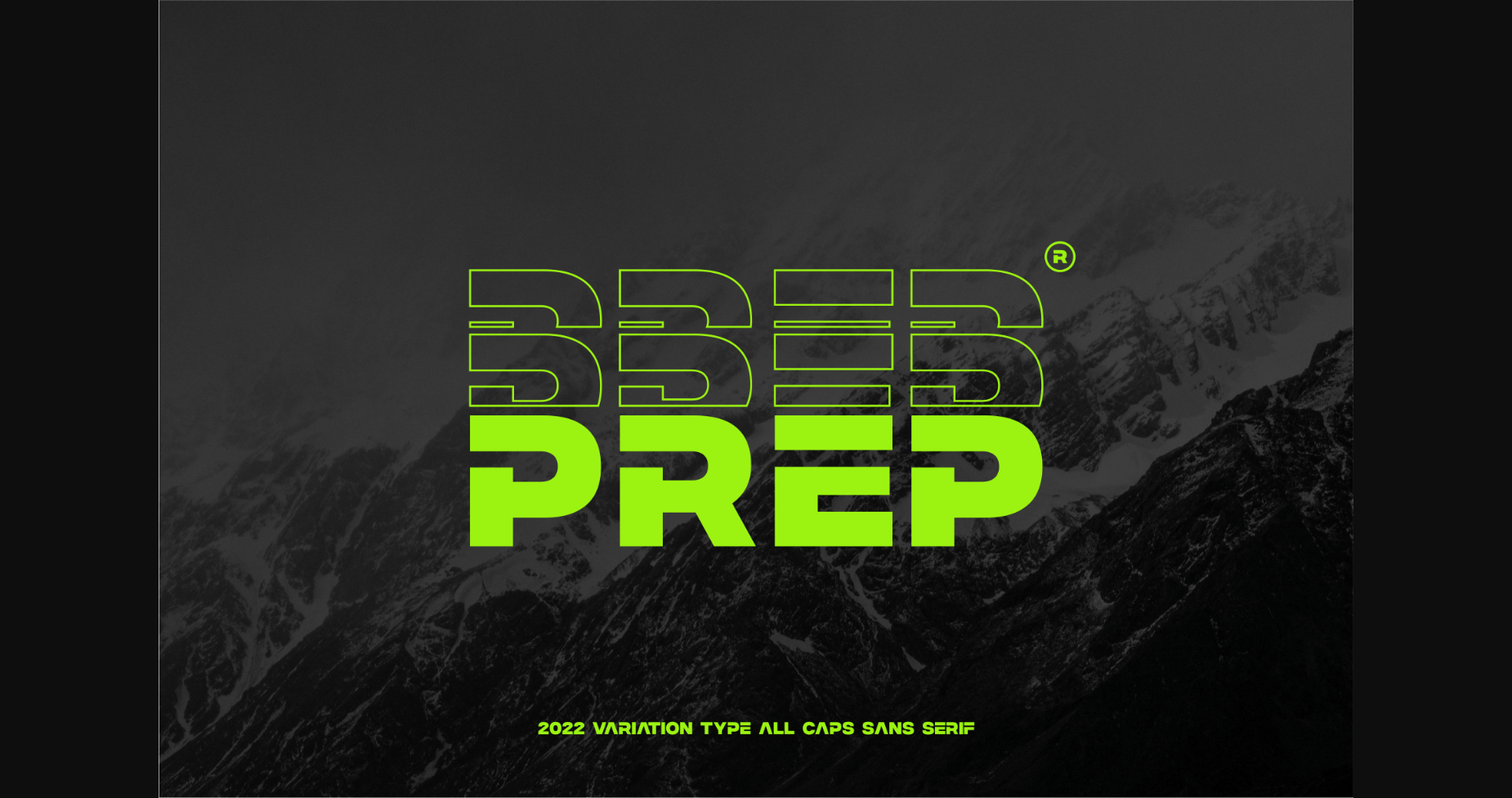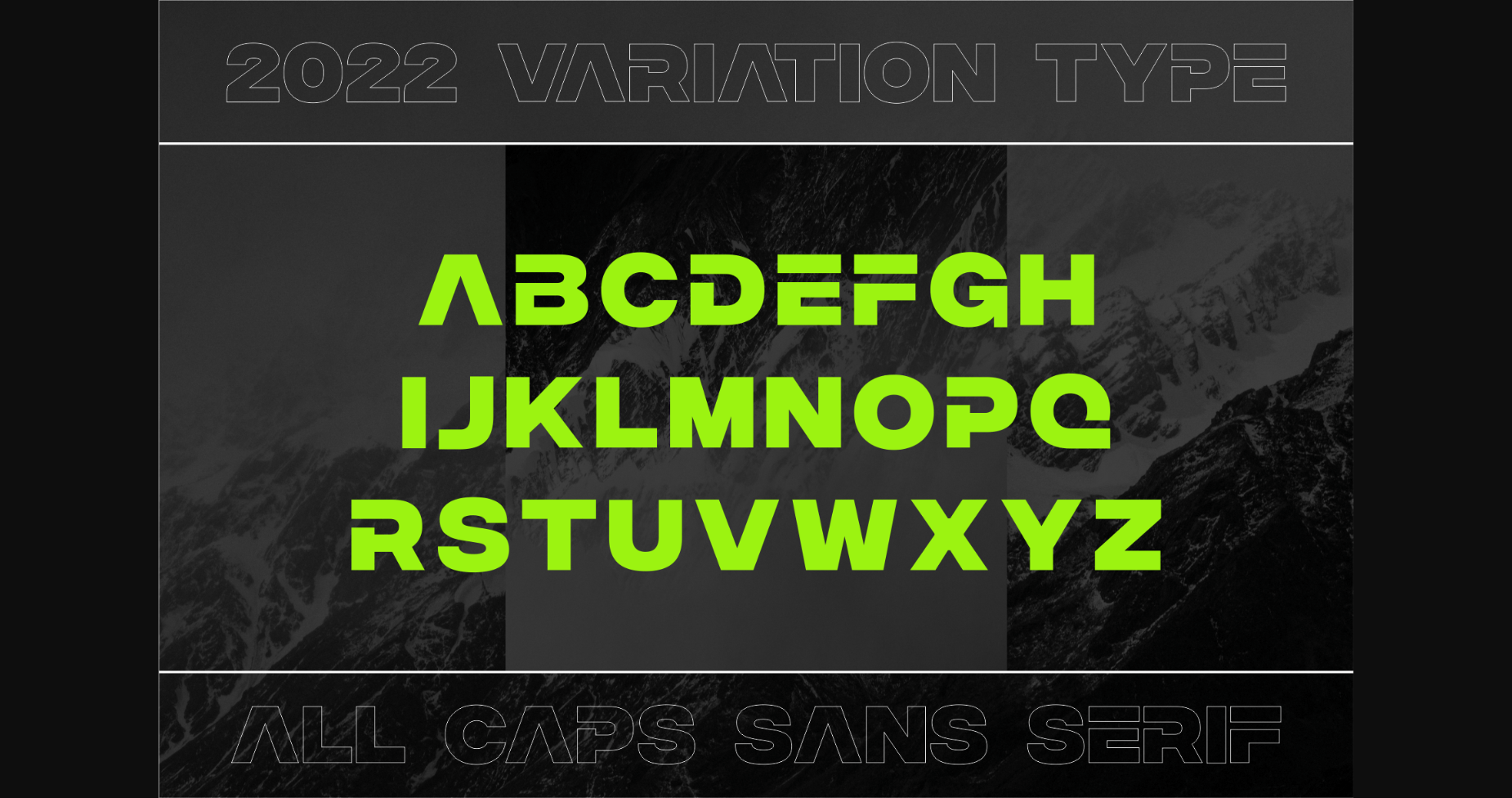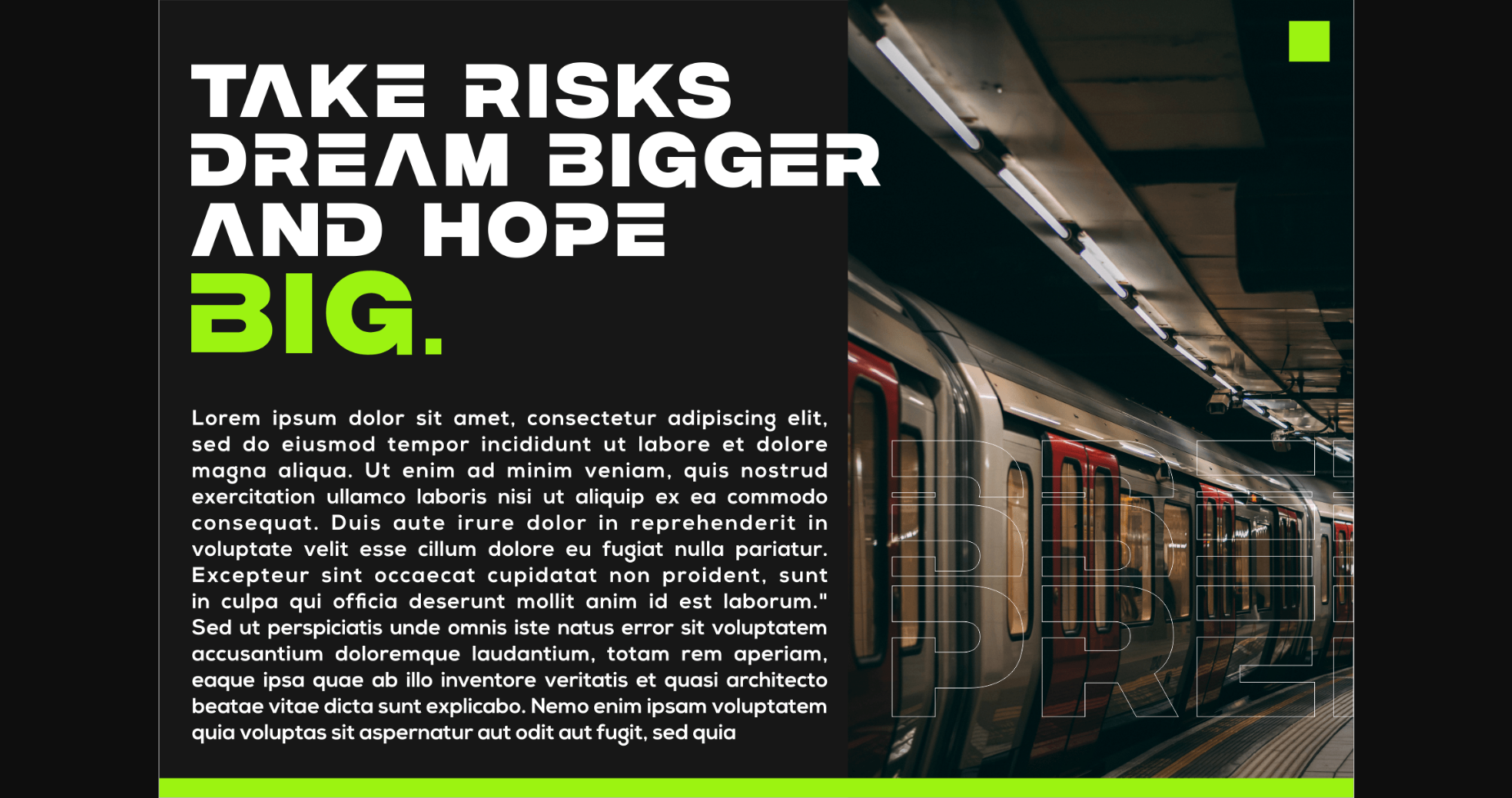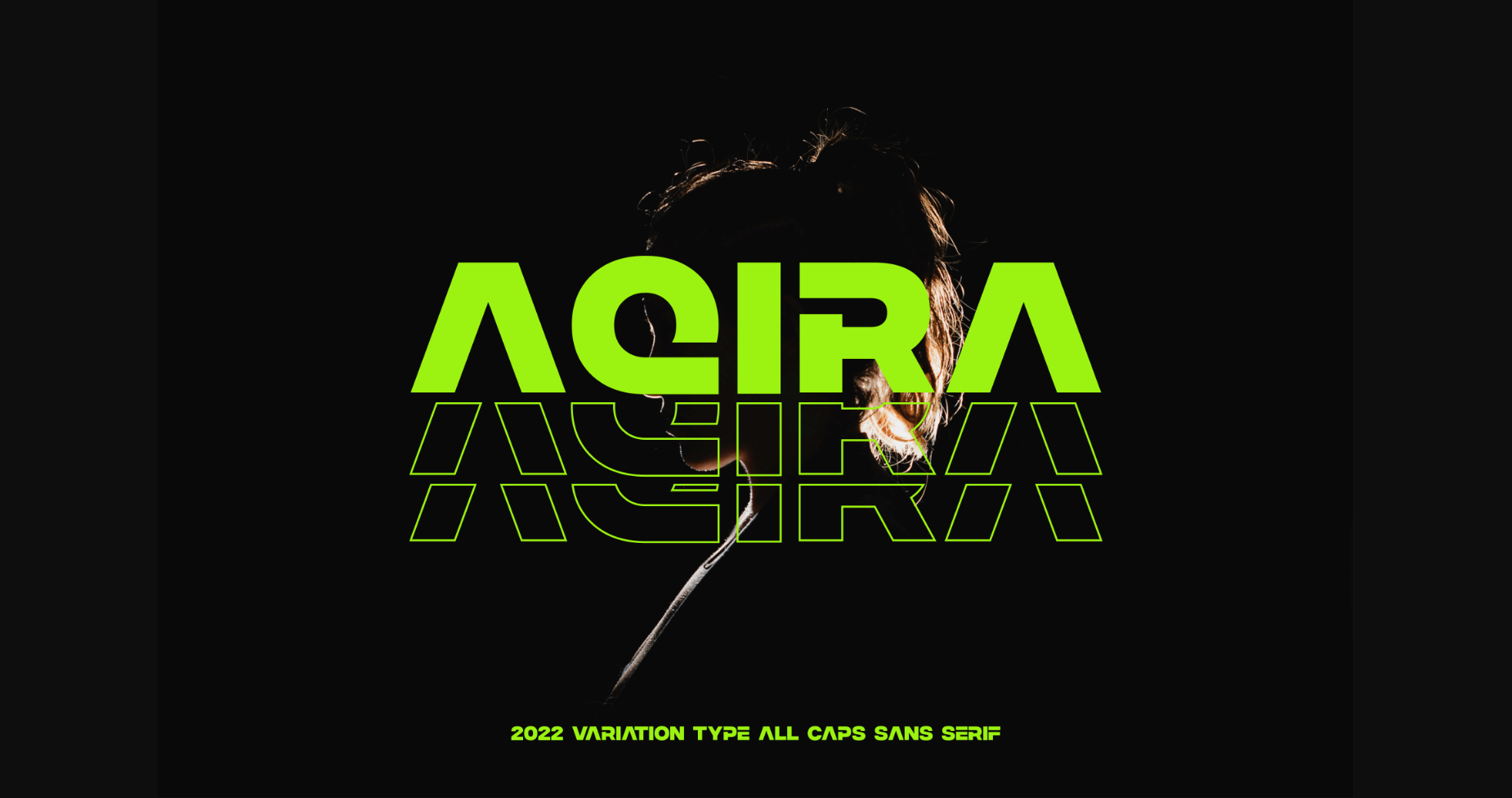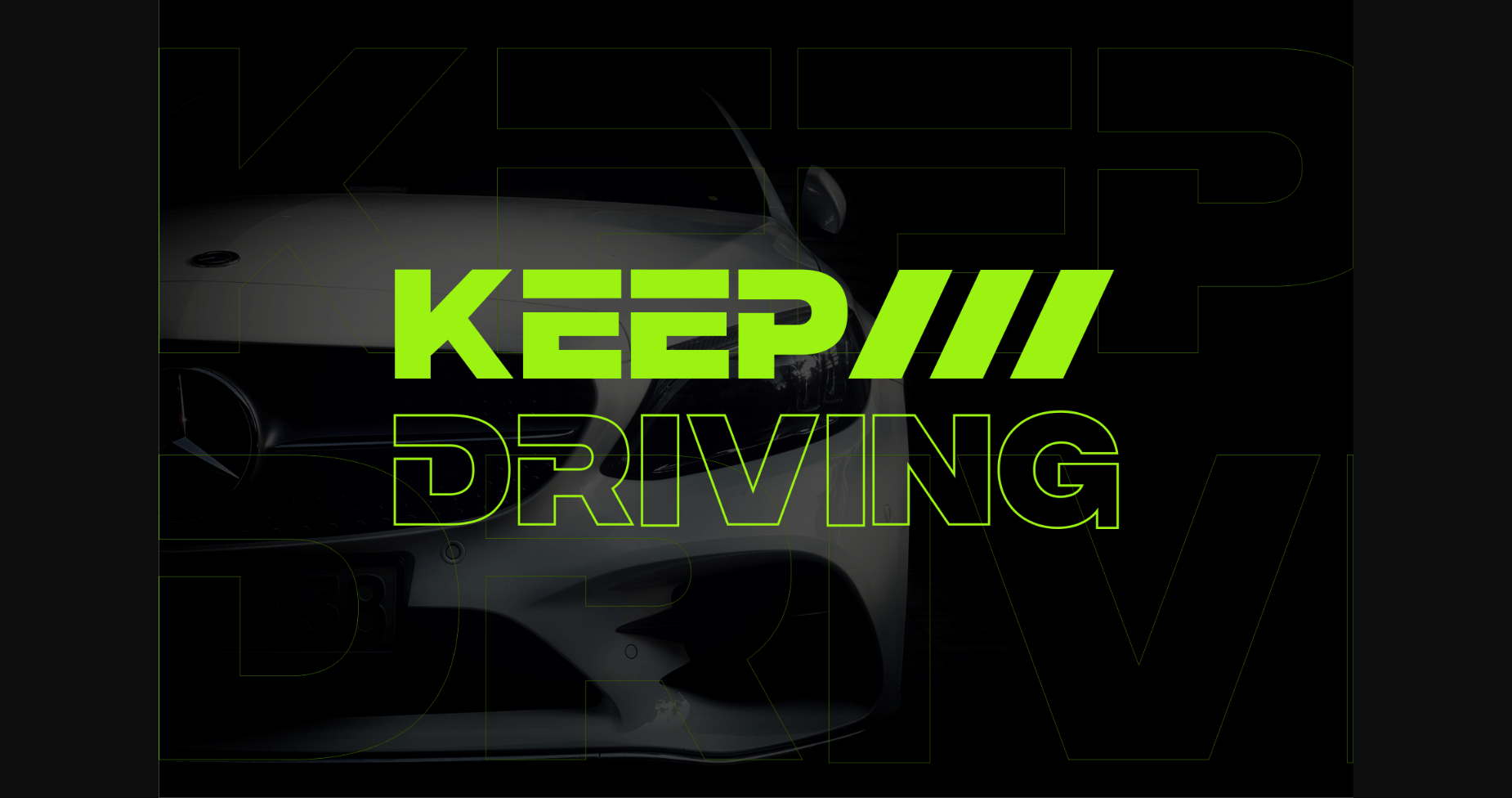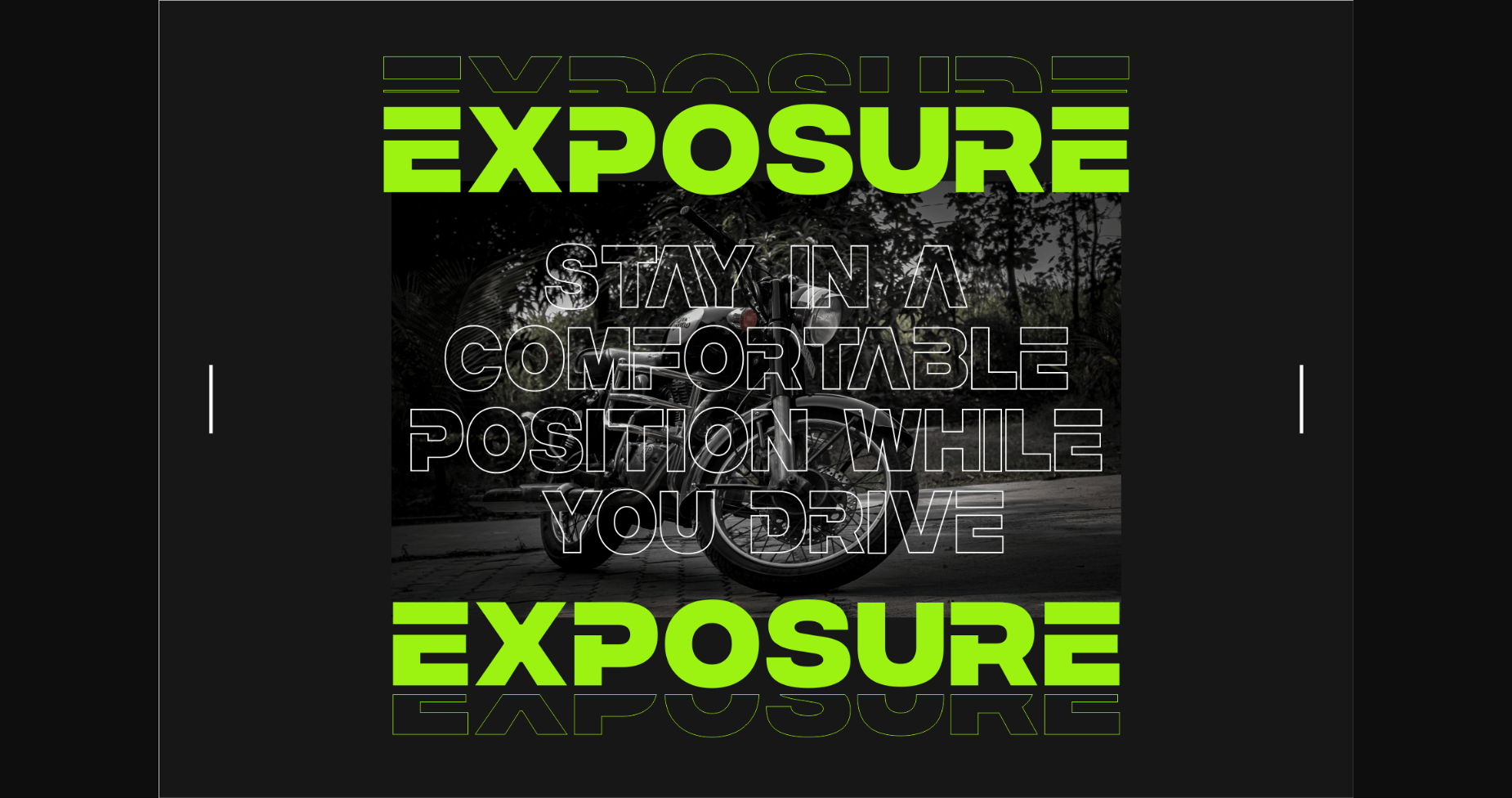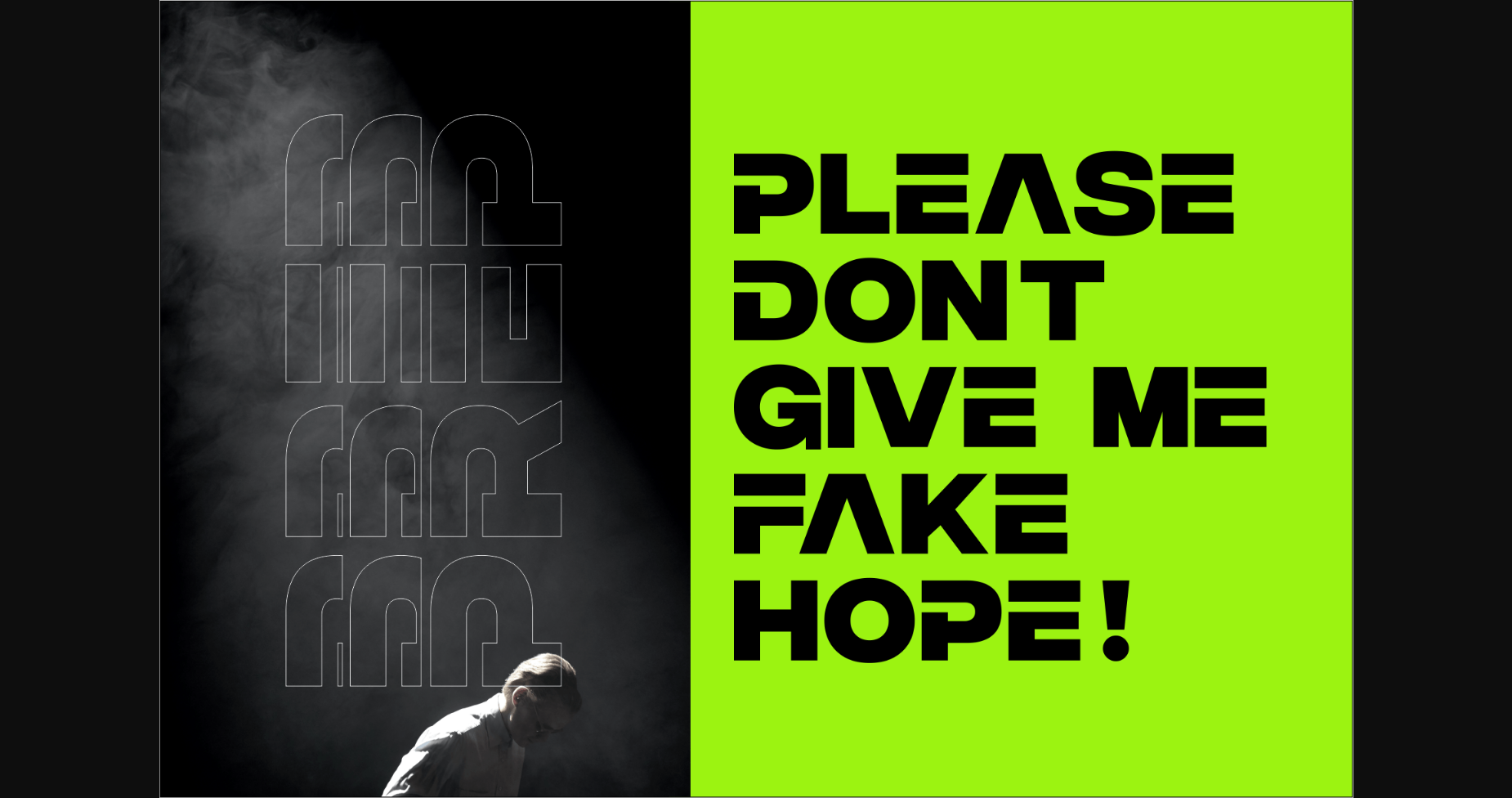
HomeSans Serif FontsPrep Font Sans Serif Fonts Prep Font FacebookXPinterestWhatsApp 1 of 10 ... Prep Font Poster 2... Prep Font Poster 3... Prep Font Poster 4... Prep Font Poster 5... Prep Font Poster 6... Prep Font Poster 7... Prep Font Poster 8... Prep Font Poster 9... Prep Font Poster 10... About Prep Font PREP is an all-caps modern sans serif font. Its geometric and bold character is perfect for a variety of projects such as logos, branding, quotes, posters, blog headers, advertisements, etc. DOWNLOAD NOW People also explored Frenkistan Font Blessing Son Font Alakita Font Slupaiy Font Sun Pride Font Christmas Cookies Font Vallassina Fly Feather Font Restorya Font 501 0 TagsPrepPrep Font Previous articleMalto FontNext articleBc Basic Font LEAVE A REPLY Cancel reply Comment: Please enter your comment! Name:* Please enter your name here Email:* You have entered an incorrect email address! Please enter your email address here Website: Save my name, email, and website in this browser for the next time I comment. Personal Use Free Dealisya Personal Use Free Read more about this font Befindisa Personal Use Free Read more about this font 08 Underground Personal Use Free Read more about this font Geuli Personal Use Free Read more about this font BLOG Free vs Paid Fonts: Why Investing in Premium Fonts Is Worth It Free vs Paid Fonts: Why Premium Fonts Are Worth It in 2025 The debate of free vs paid fonts continues in the design world. While... Top 7 Google Fonts Alternatives for Faster and Privacy-Friendly Web Design (2025) How to Cut Any Font on Cricut: Convert a Font to SVG (Free) Transform Your Website: Elevate Your Typography with 7 Best Web Font Generators